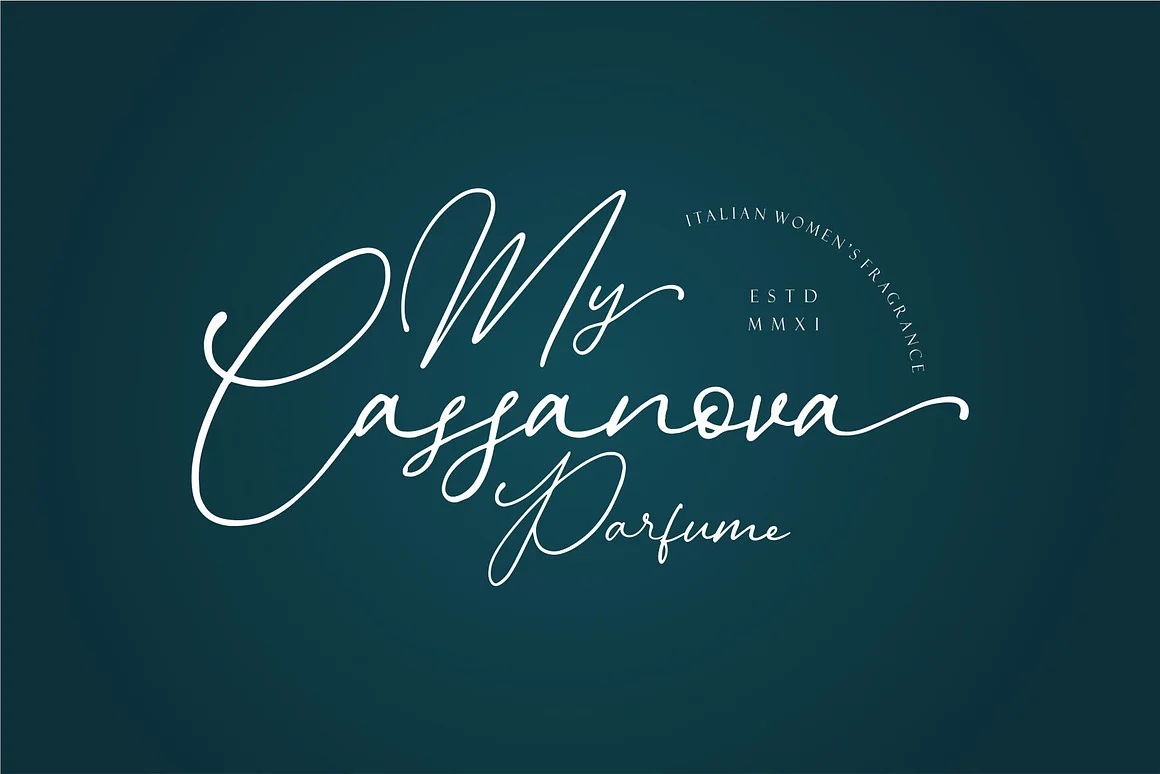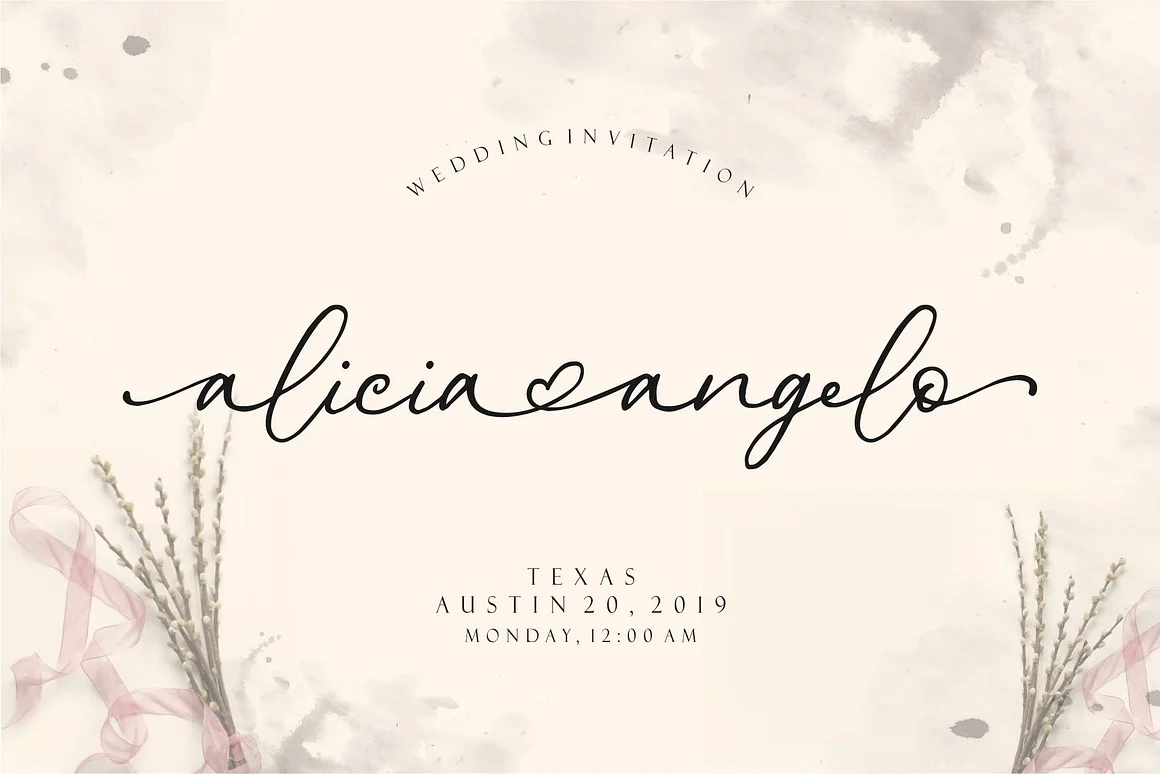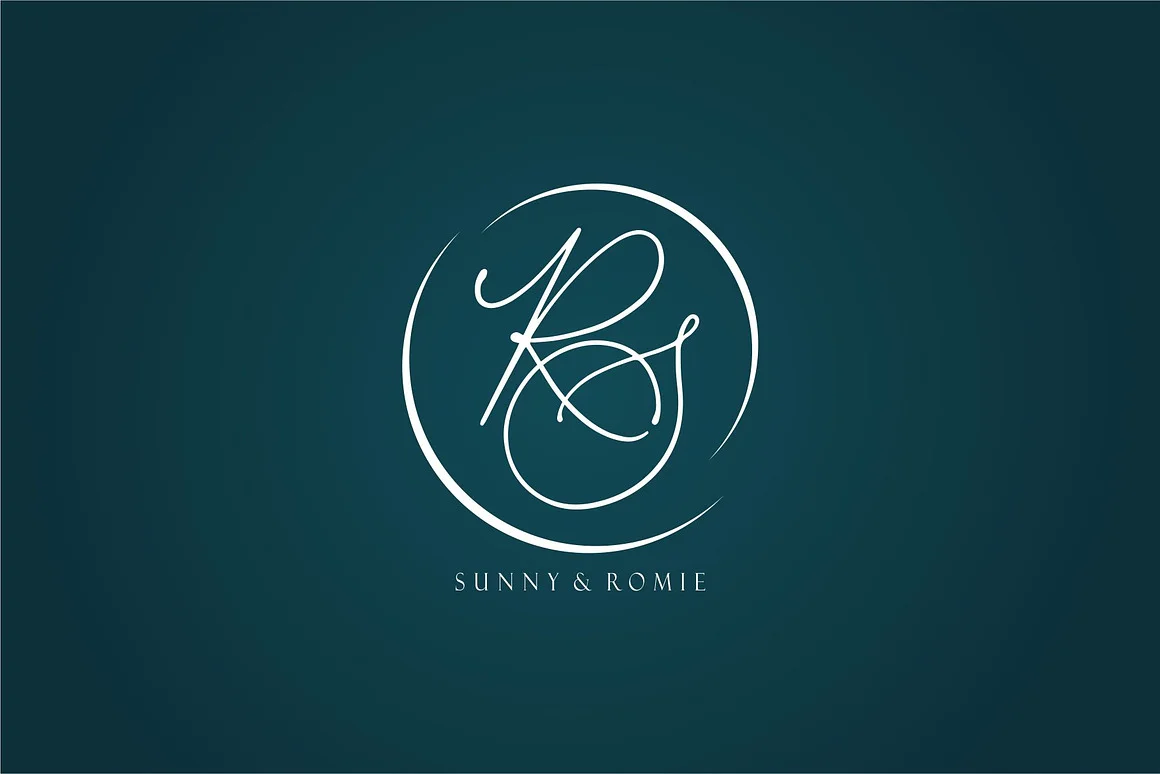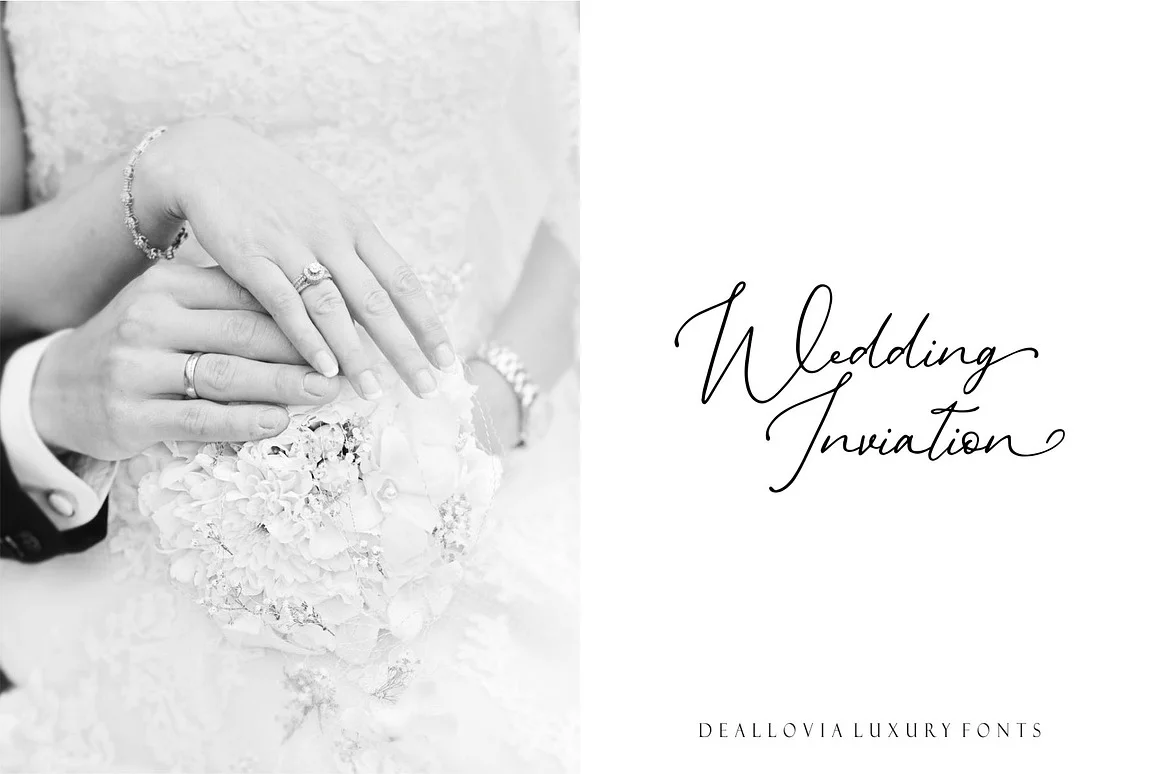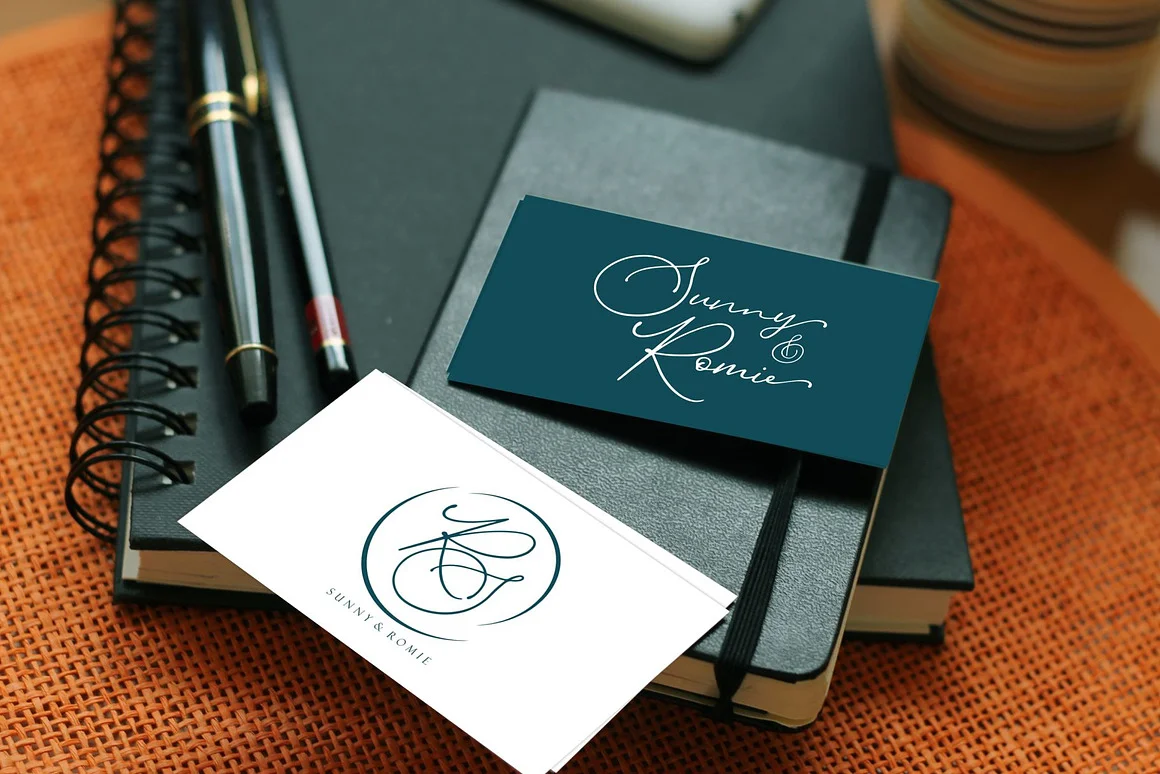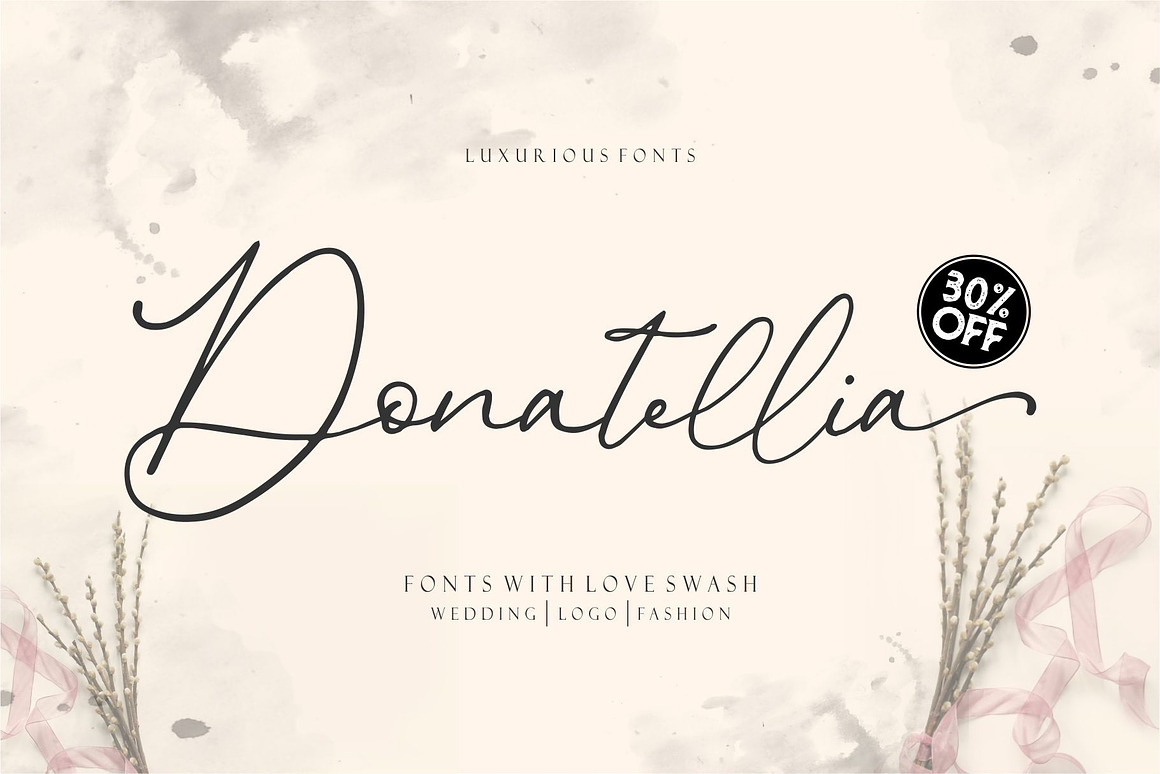
Donatellia Signature Font
The Donatellia Signature Font excels in luxurious design applications including high-end fashion branding, elegant boutique logos, sophisticated wedding invitations, premium beauty products, luxury hospitality identities, artistic portfolios, exclusive event stationery, upscale restaurant branding, designer packaging, and refined corporate communications. Its opulent script style makes it perfect for projects requiring aristocratic elegance that communicates exclusivity and establishes prestigious brand positioning with affluent audiences seeking exceptional sophistication.
What makes the Donatellia Signature Font genuinely exciting is its exceptional embodiment of Italian-inspired elegance through masterfully crafted letterforms. The font features gracefully flowing strokes with Renaissance-influenced flourishes and perfectly balanced proportions that create a distinctly aristocratic appearance. Each character displays extraordinary attention to detail with luxurious curves, sophisticated connections, and regal spacing that give text an opulent, hand-lettered quality reminiscent of classical Italian calligraphy. The font's aristocratic character and elegant rhythm create an atmosphere of timeless refinement.
The Donatellia Signature Font family typically includes regular weight with comprehensive character sets, featuring uppercase and lowercase letters, numerals, punctuation, and international glyphs. The typeface often incorporates stylistic alternates, contextual ligatures, and ornamental swashes that enhance its signature sophistication. These additional elements provide designers with creative options to customize text appearance and achieve more natural-looking aristocratic handwriting that reflects the font's luxurious and distinguished character.
This prestigious signature font captivates discerning audiences through its remarkable ability to convey heritage and luxury simultaneously. Unlike contemporary fonts that lack historical depth, Donatellia Signature Font possesses classical elegance that resonates with sophisticated audiences who appreciate timeless beauty and cultural refinement. The font's aristocratic appearance makes it essential for luxury brands and prestigious projects where heritage and exclusivity are fundamental requirements for establishing credibility in elite markets.
The Donatellia Signature Font offers designers an exceptional opportunity to incorporate aristocratic elegance into their premium projects. From luxury Italian fashion houses to exclusive fine dining establishments, this font delivers the sophisticated signature aesthetic that resonates with affluent audiences who value classical beauty and cultural heritage. Its prestigious appeal ensures your designs communicate timeless luxury while the signature styling adds distinctive personality that reflects aristocratic sophistication in any application requiring exceptional typography excellence.